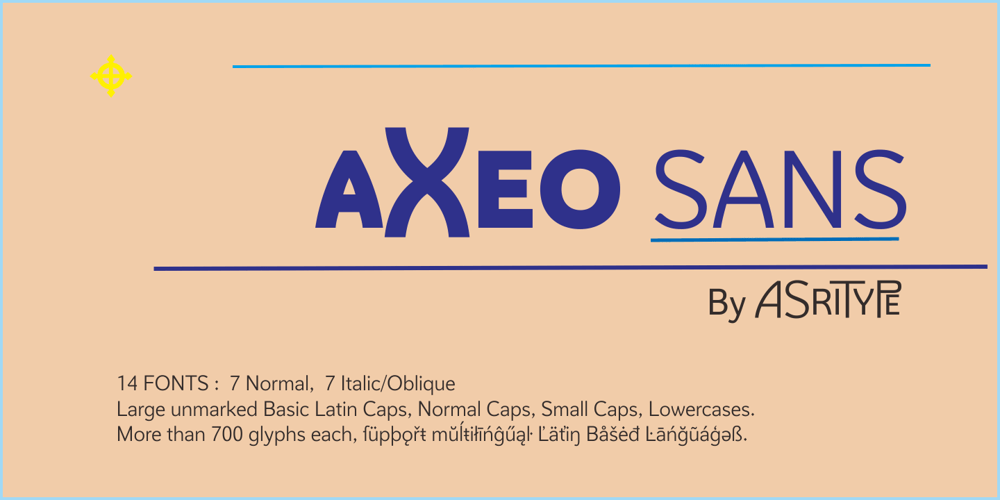
Axeo Sans
Axeo Sans font
Axeo Sans Font Family was designed by Sudarmaji and published by Asritype. Axeo Sans contains 14 styles and family package options. As mentioned on previous released font Axeo (freeform serif), now, the original sanserif font is released with similar name, Axeo Sans. Axeo was release first when Axeo sans is still in minimal glyphs and font weights. However, Axeo sans is released with more fonts, 7 font in roman and 7 in italic/oblique versions, instead of semi condensed. 7 fonts is in roman form of weight: Light, Regular, Medium, Semi Bold, Bold, Extra Bold and Black; and 7 fonts in italic/oblique versions of its weight, respectively. This font weight offers the user to use the best fit to the usage. Axeo sans is neutral typeface, designed for general use. This font has also more glyphs variations and OpenType features. More than 700 glyphs for each cut. While the OpenType is equipped with: Large unmarked Basic Latin caps (ss02-ss05); normal character variation for some letters (ss01); Small caps (c2sc and smcp); superscript for 1, 2, and 3; ordinals for a and o; 5 basic fractions; standard and discretionary ligature; kerning; case sensitive and ornaments. Large Caps is unique setting, additional letters for font variations lover/user, applicable for first letter of paragraph, sentences, for design mean, just for fun or other usage.